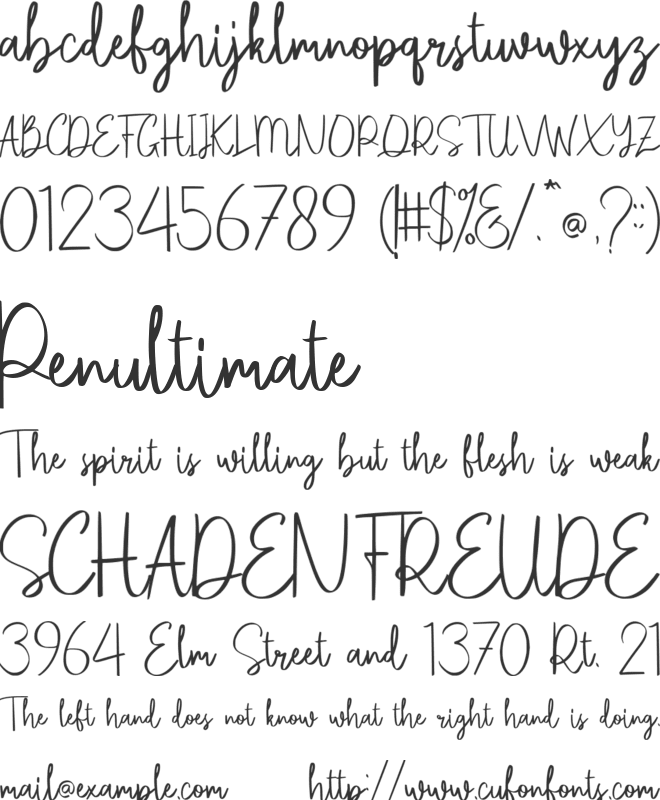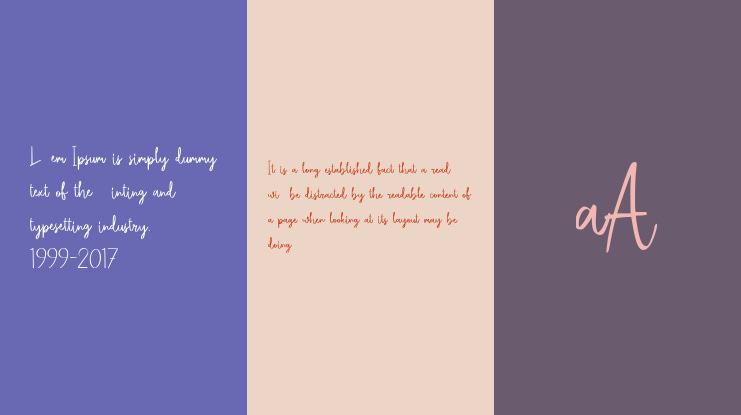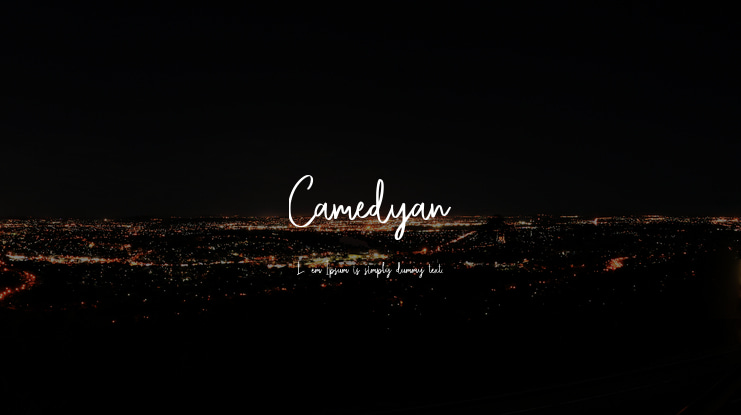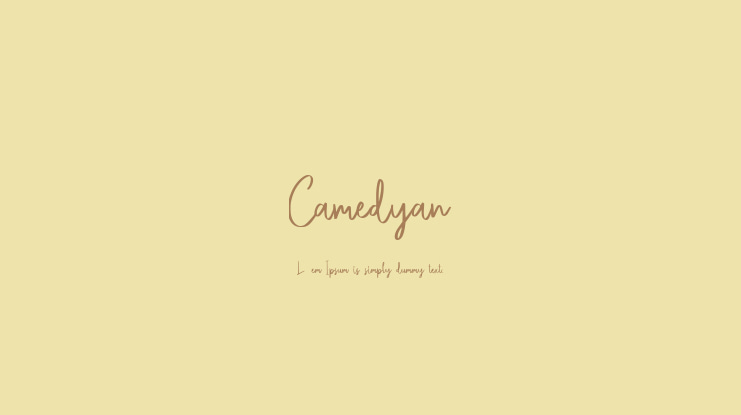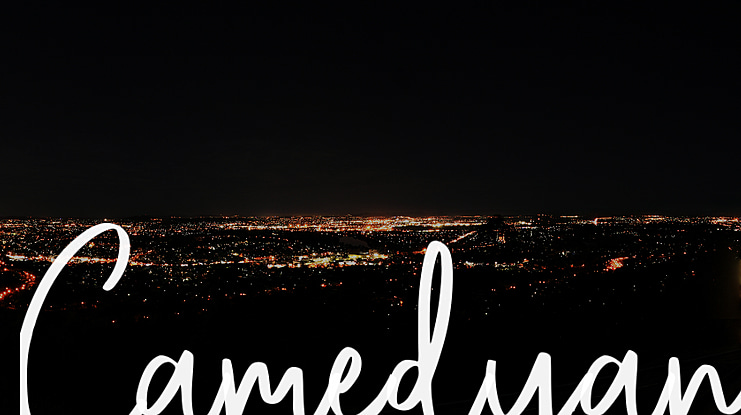
It’s a A Modern Handwritten Font. Camedyan is perfect for product packaging, branding project, megazine, social media, wedding, or just used to express words above the background.